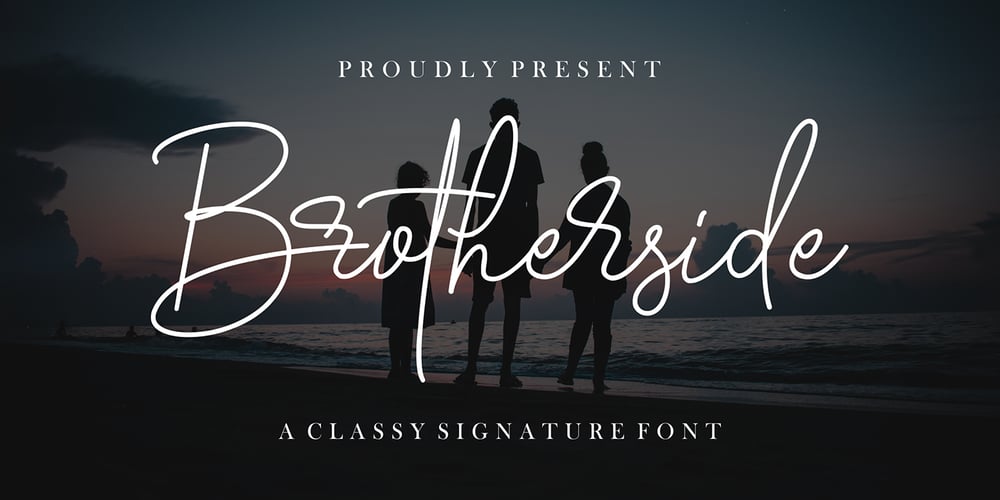
Brotherside Signature Font Family was designed by Icep Anwar Fadhil and published by Figuree Studio. Brotherside Signature contains 1 styles and family package options. The Brotherside is a signature decorative font with which you can achieve a handwritten-type lettering feeling. This signature style is perfect for your modern graphic design needs. This font has a really nice flow so you use it in a large text if you want to give them a touch of personality. It can be used on social media content, for branding or packaging.The Brotherside is the ideal typeface for organic products branding and packaging. Additionally, you can use this for adding romantic vibes for wedding invitation designs. Especially if you are looking for a font for Instagram quote posts or any other social media content, this typeface is for you!With your purchase you get: Uppercase and Lowercase Numbers and Punctuation Marks Ligature PUA Encoded open Support for MAC or PC Simple installation for Adobe Illustrator, Corel Draw, Photoshop, or Procreate (New Updated) Support Multilanguage I hope you make something cool with it. If you have any questions don’t hesitate to ask!Stay Classy!Fadhil – Figuree Studio